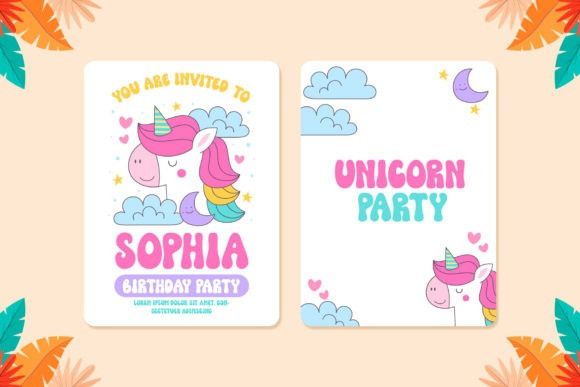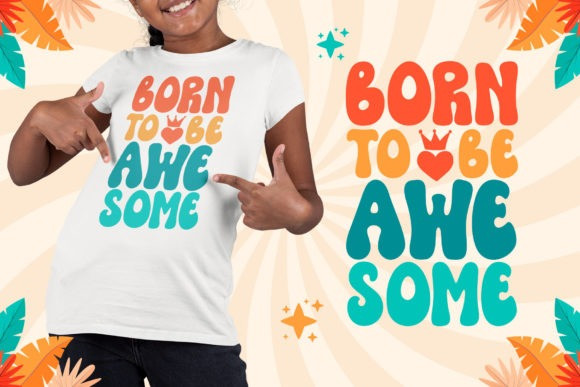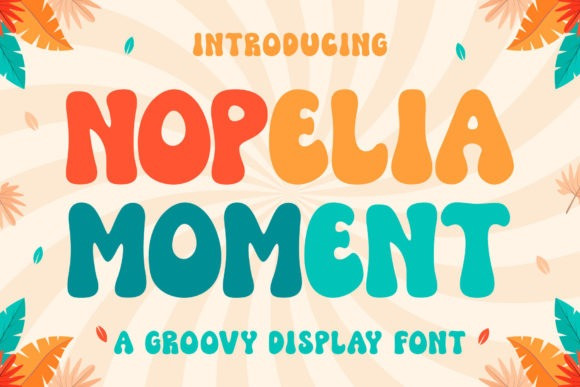
Nopelia Moment Font
Nopelia Moment Font is a groovy display font that will take your creative projects out of the ordinary!
This font is perfect for creating t-shirts, stickers, cover books, children’s books, social media posts, invitations, and more!